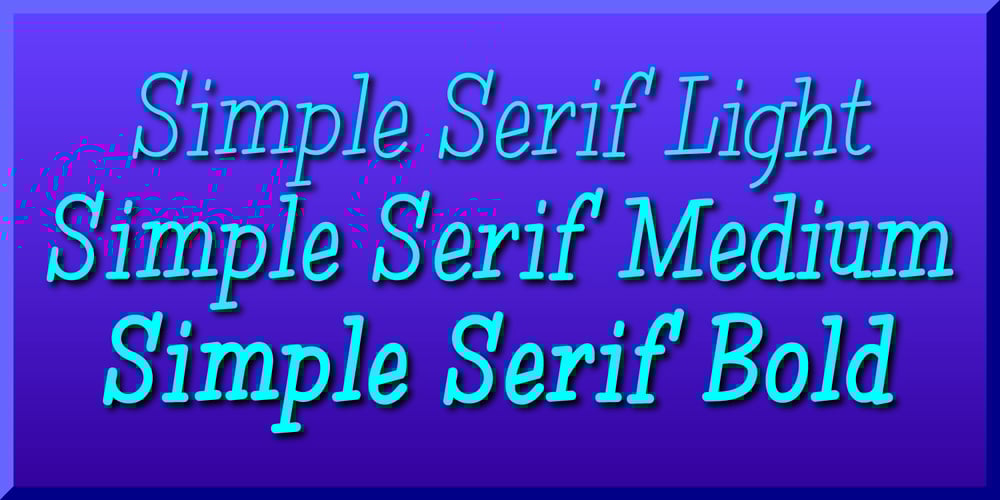
Simple Serif Font Family was designed by Gerald Gallo and published by Gerald Gallo. Simple Serif contains 3 styles and family package options. The Simple Serif fonts are designed as hand-lettered serif fonts. They are casual and informal and are ideal for use in conveying these qualities.